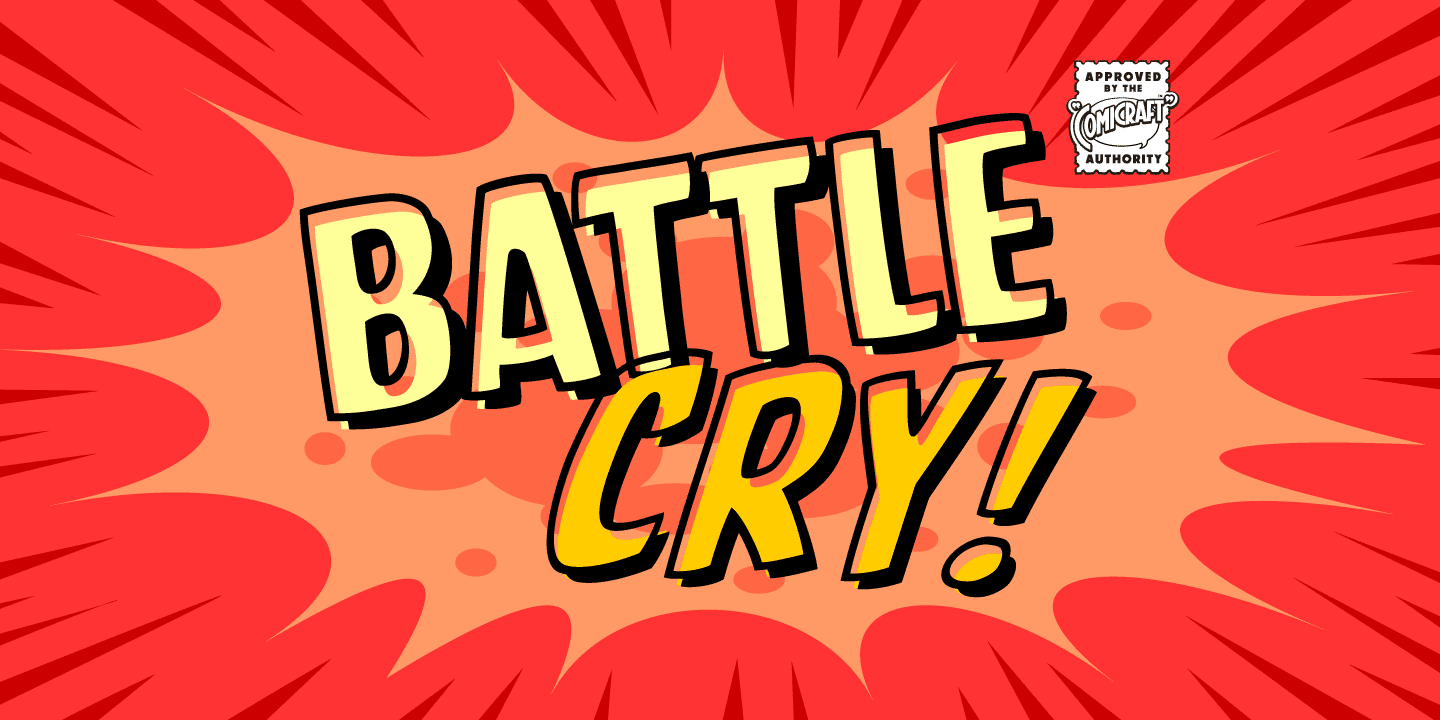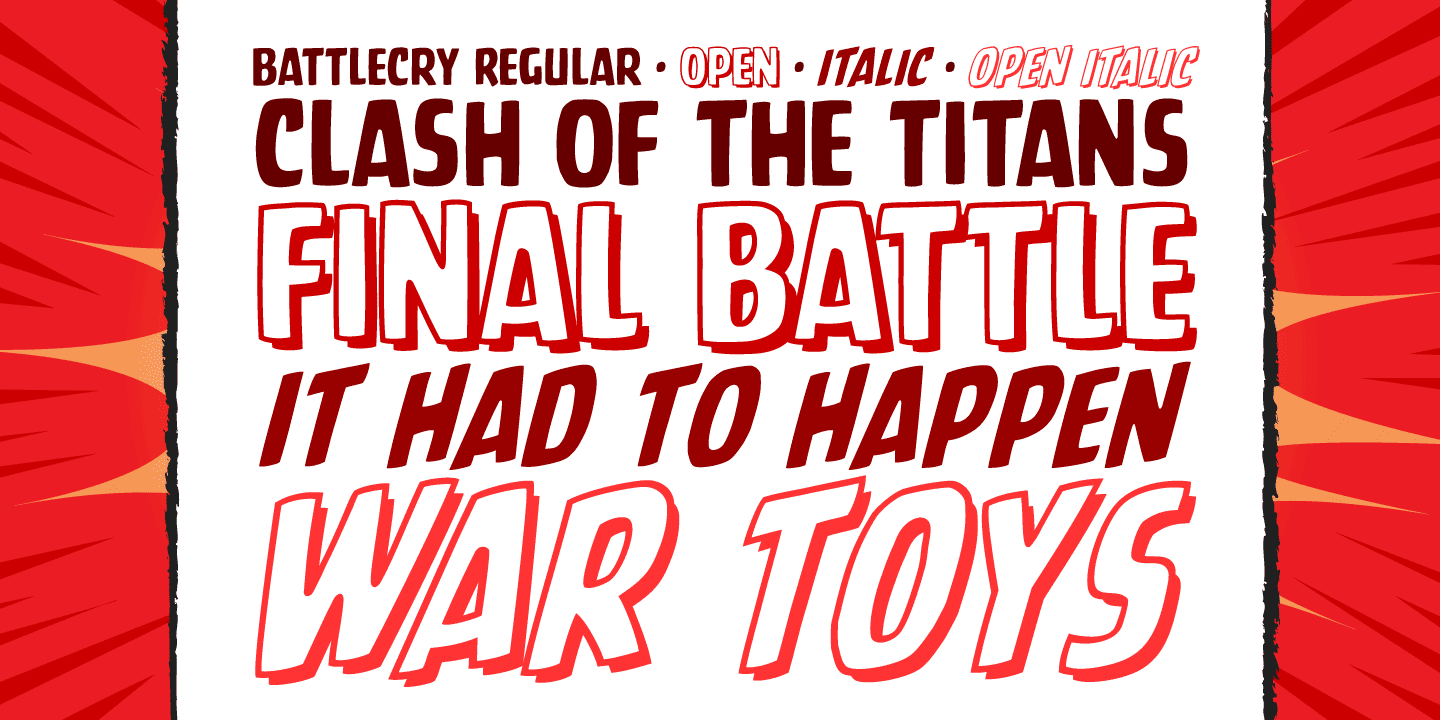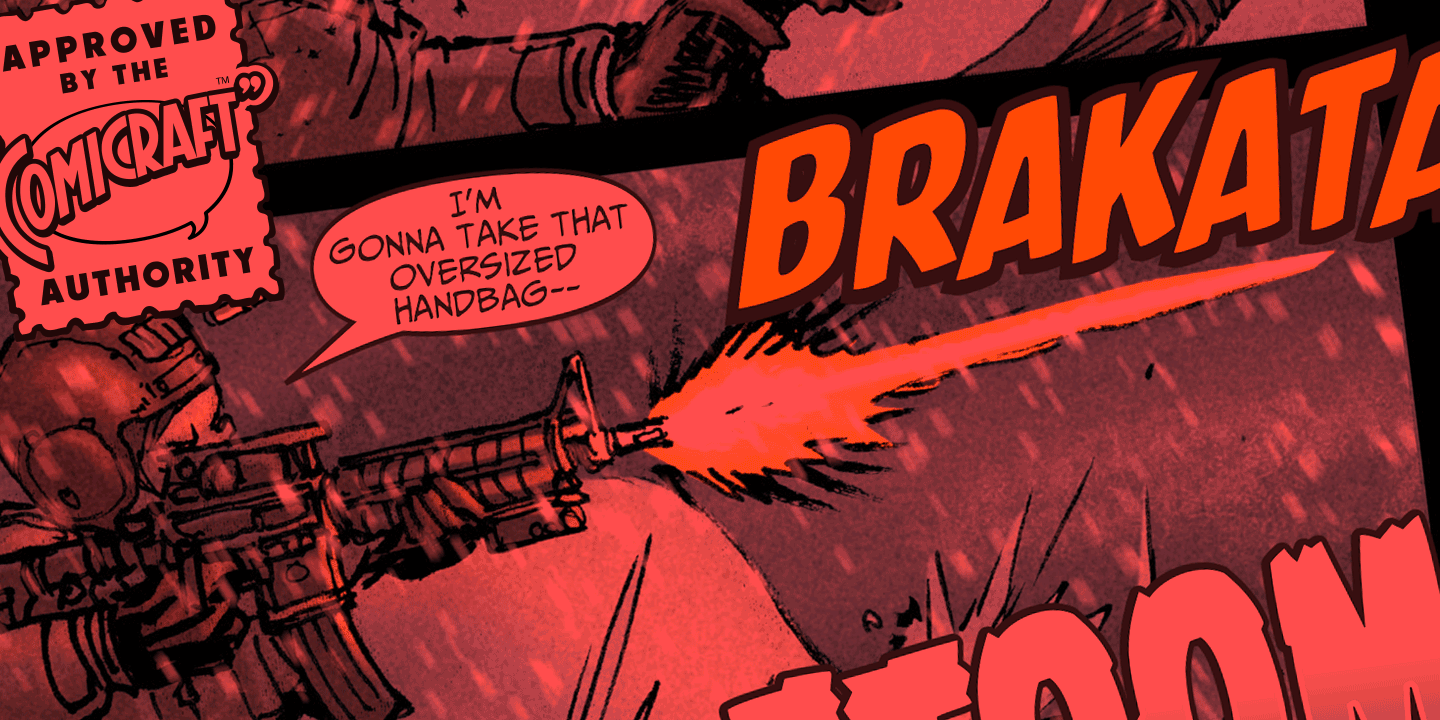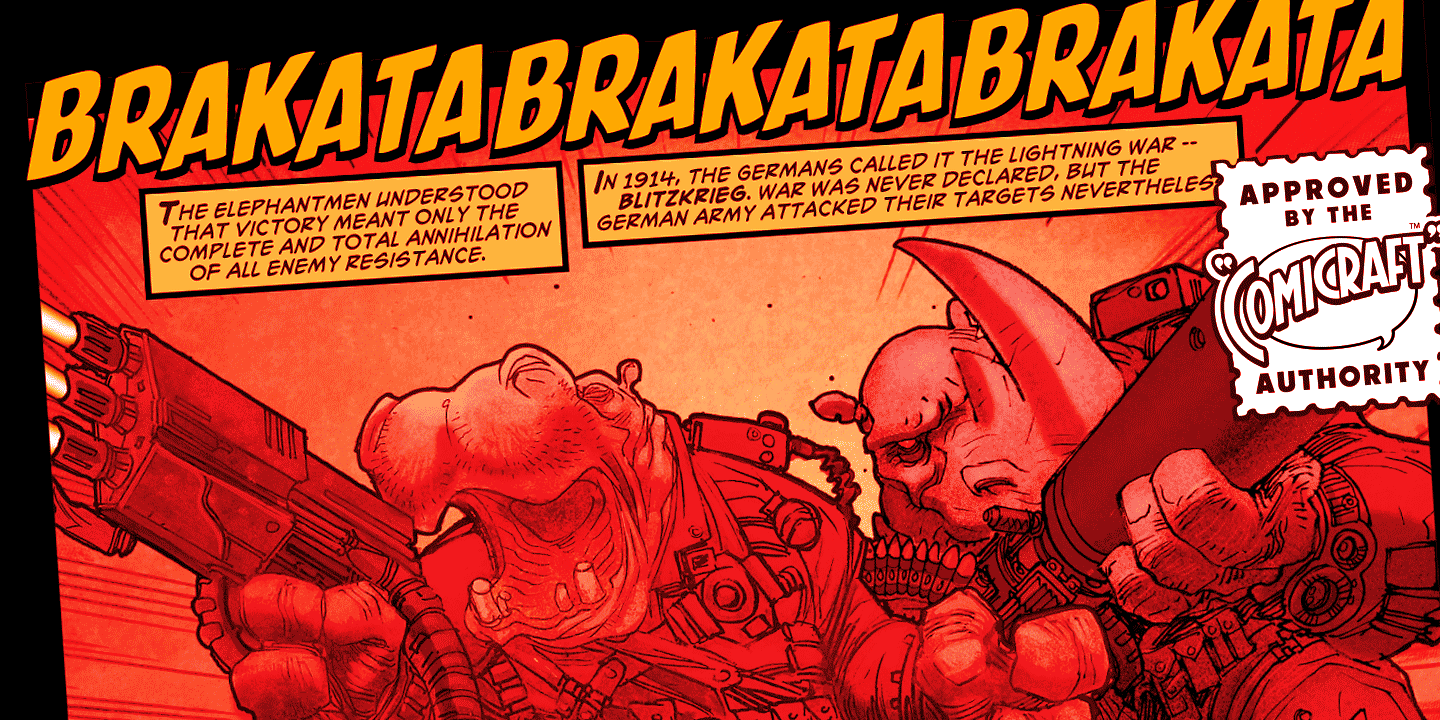
Battle Cry
Font Family by Comicraft Fonts
As Titans Clash in The Final Battle of Good versus Evil, Man versus Machine, God versus Mortal and Coke versus Pepsi, ace lettering artist, Ferran Delgado from Spain teams up with our very own John 'JG' Roshell for one last attack on the assembled Cover Lettering Styles of Yore. Fill your lungs and prepare for... BATTTTTTLECRRRRRYYYYYYYYYYY!
Battle Cry Italic
Battle Cry Open Italic
Battle Cry Open
Battle Cry Regular